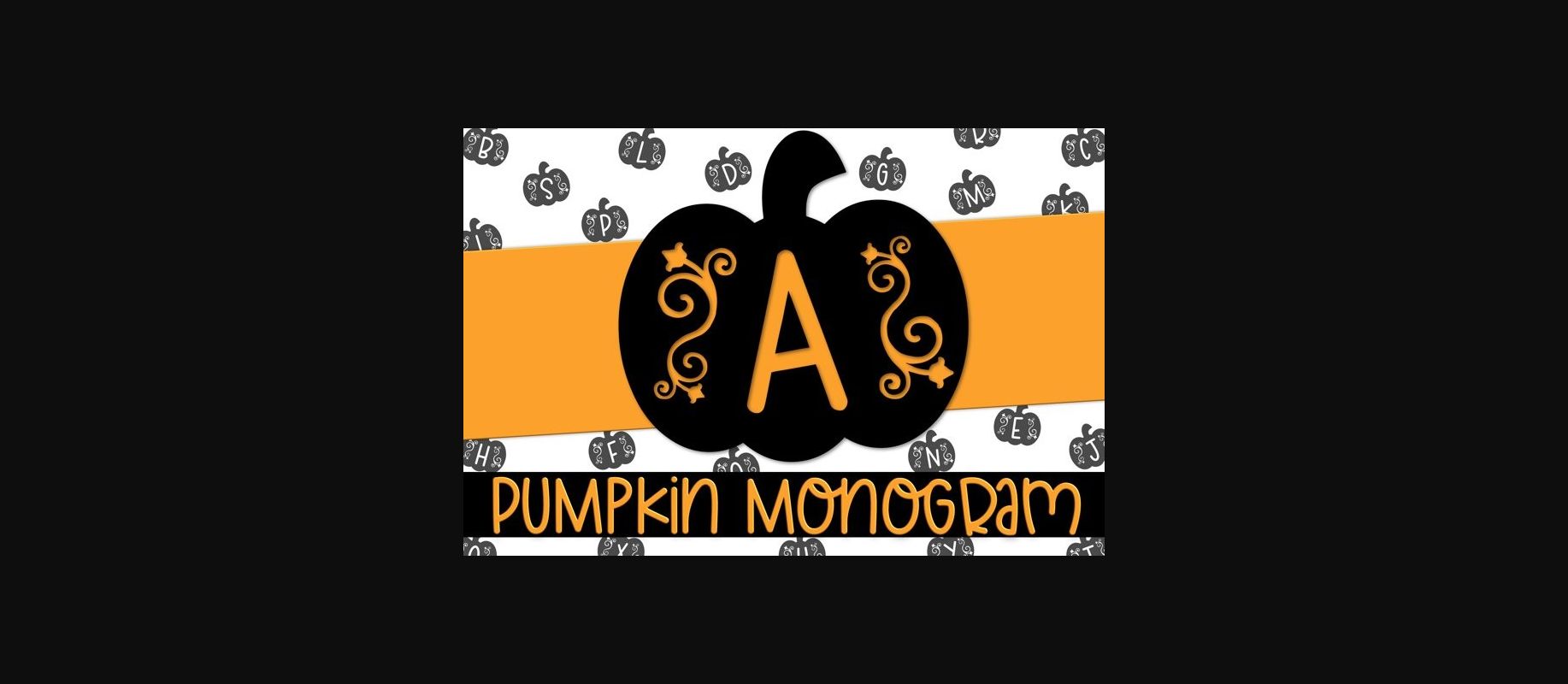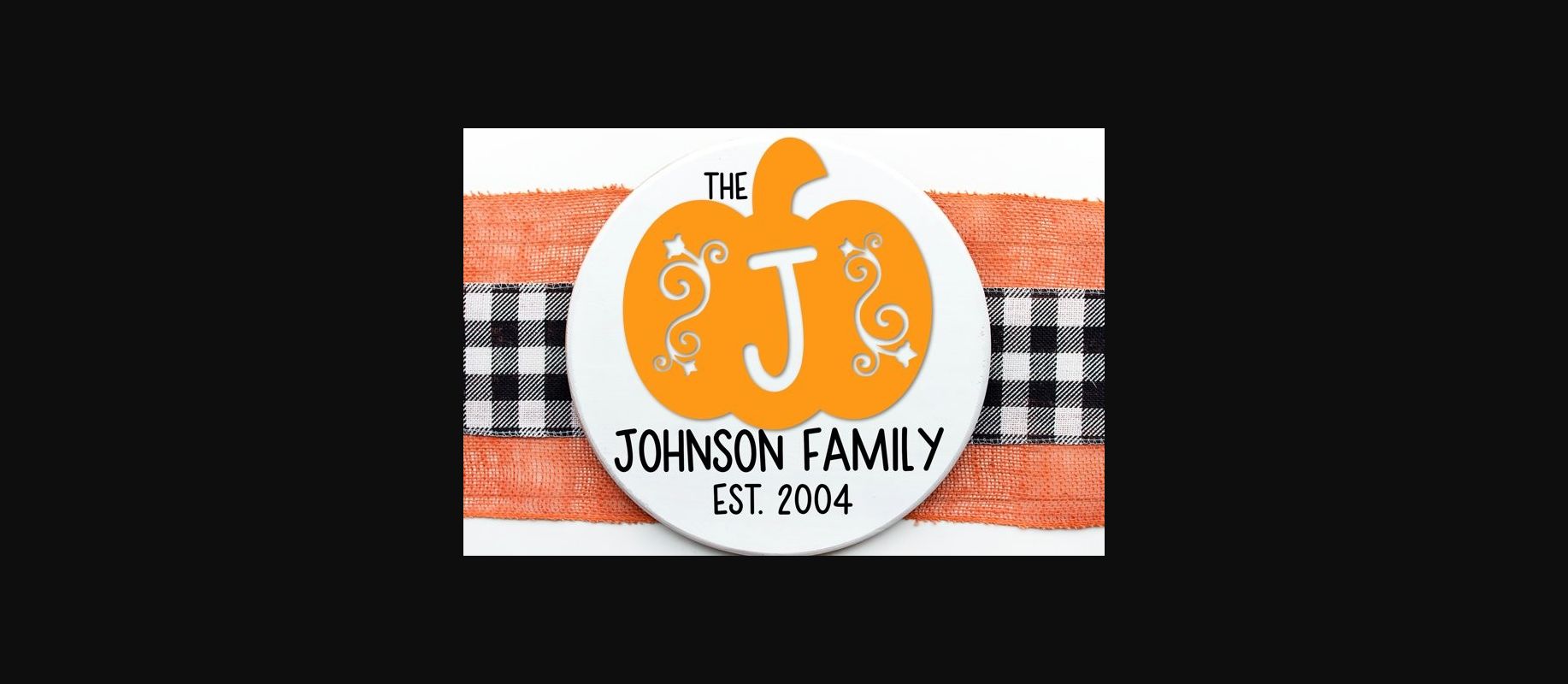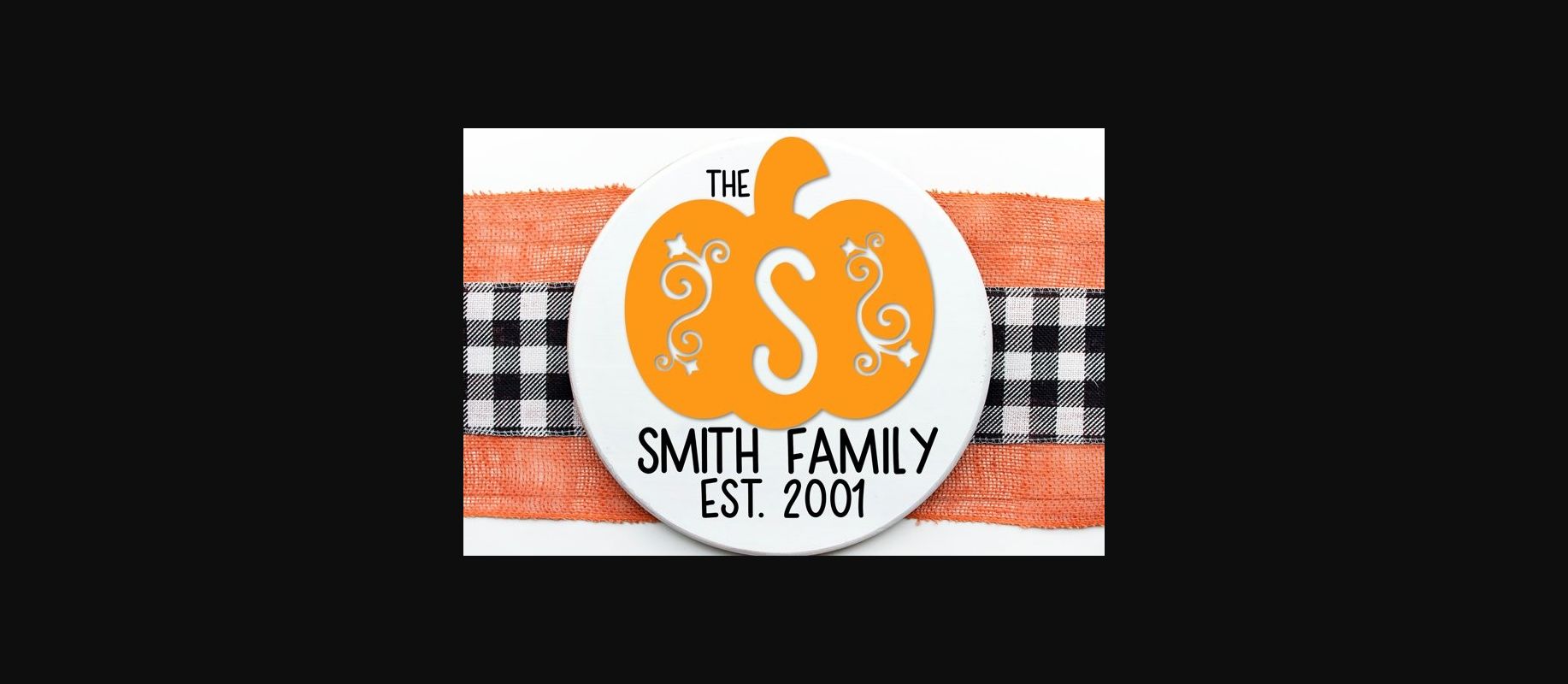
About Pumpkin Monogram Font
Pumpkin Monogram is a fun and playful decorative font that captures the festive spirit of fall. Its whimsical letterforms feature playful curves and embellishments inspired by the iconic shape of a pumpkin. The font’s bold and vibrant design creates a sense of energy and excitement, making it perfect for anything from seasonal branding to party invitations. Pumpkin Monogram’s cheerful and lighthearted style is sure to add a touch of fun and festivity to your project.